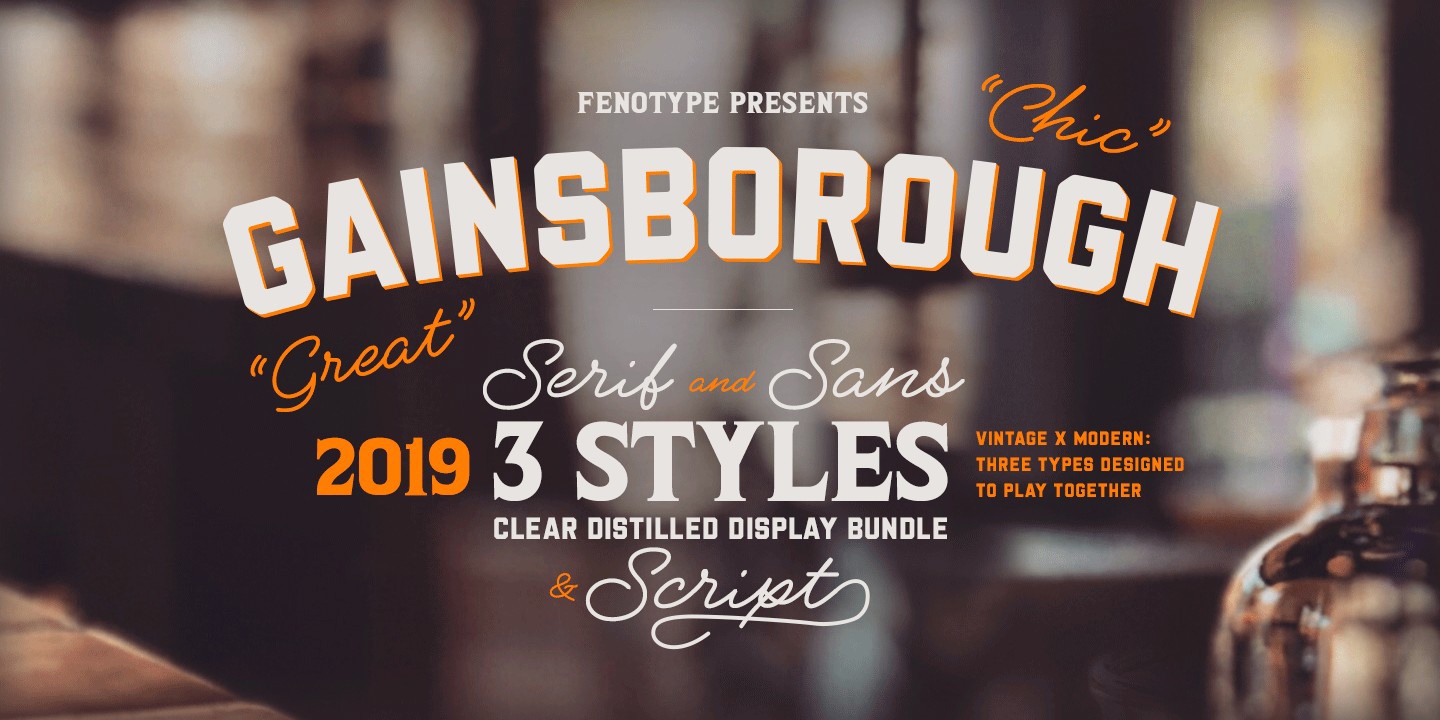
Gainsborough Font
Gainsborough Font is perfect for fine art gallery branding, portrait studio communications, classical museum exhibitions, aristocratic event invitations, luxury heritage brands, cultural institution materials, refined wedding stationery, and elegant advertising campaigns. This distinguished typeface works beautifully in both digital applications and print media where artistic refinement and classical elegance are essential design elements.
What makes Gainsborough Font so exciting is its exquisite interpretation of 18th-century portraiture elegance through graceful letterforms that seem painted with the same masterful technique and aristocratic sensibility that defined Thomas Gainsborough's celebrated artistic legacy. The font features refined characters with portrait-worthy proportions, classical curves, and artistic details that evoke the sophisticated atmosphere of Georgian society and the timeless beauty of fine art portraiture. Its cultured personality and artistic heritage make it ideal for brands seeking to communicate classical refinement while appealing to audiences who appreciate fine art, cultural sophistication, and the enduring elegance of aristocratic taste.
The Gainsborough Font family includes multiple weight variations with different artistic intensities, along with classical alternates and portrait-inspired ornamental elements. Each style maintains the typeface's refined character while offering comprehensive character sets including elegant numerals, artistic punctuation marks, and special symbols designed to enhance cultural communications and aristocratic branding efforts across various sophisticated contexts.
This remarkable typeface represents the perfect marriage of fine art tradition and contemporary design functionality for cultural and luxury industries. Whether you're developing art gallery identities, creating museum exhibition materials, or designing luxury heritage campaigns, Gainsborough Font Free Download provides the artistic sophistication and versatility needed to captivate culturally refined audiences. The font's classical appeal makes it particularly effective for art institutions, luxury portrait studios, cultural organizations, and businesses celebrating the timeless beauty and aristocratic elegance of fine art traditions.
The carefully crafted artistic details and optimized cultural performance in Gainsborough Font ensure both classical authenticity and clear communication across all refined applications. Its elegant presence makes it perfect for artistic branding, cultural marketing materials, and sophisticated communications where its full portrait-worthy character can create lasting connections with audiences who appreciate fine art, classical beauty, and the distinguished elegance of aristocratic cultural traditions.